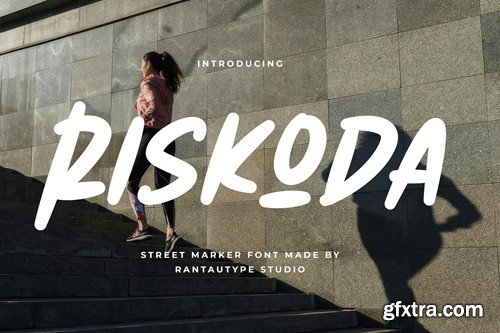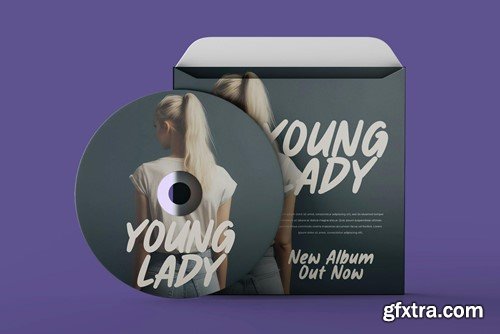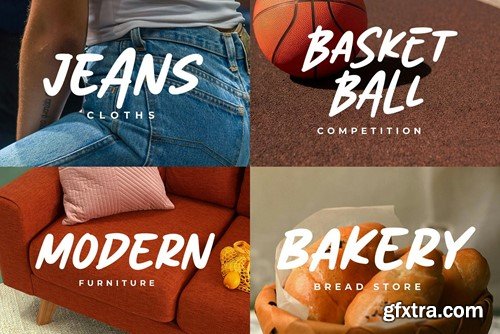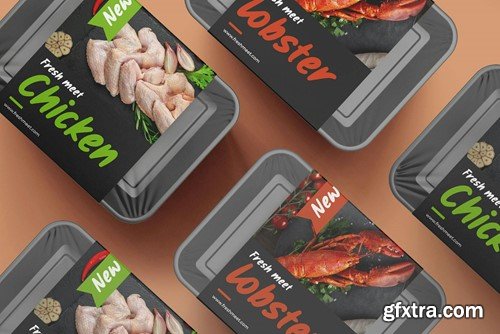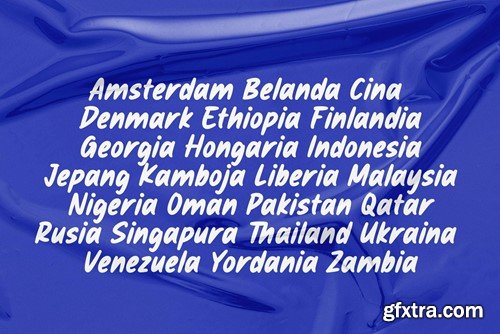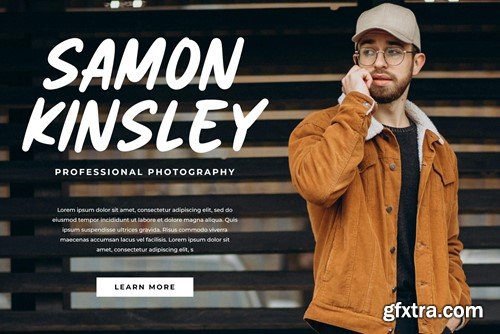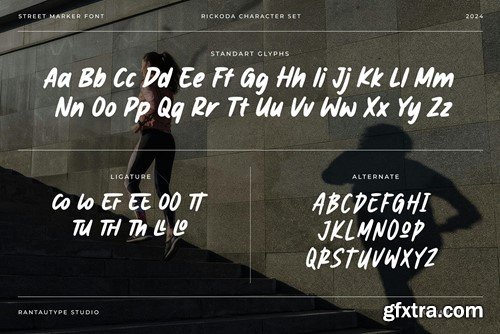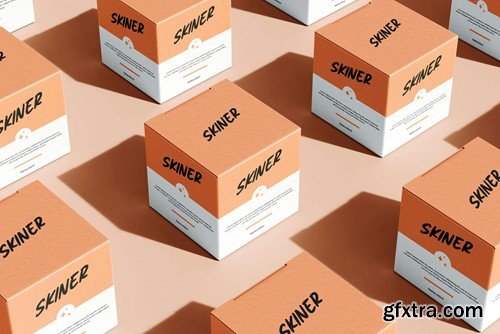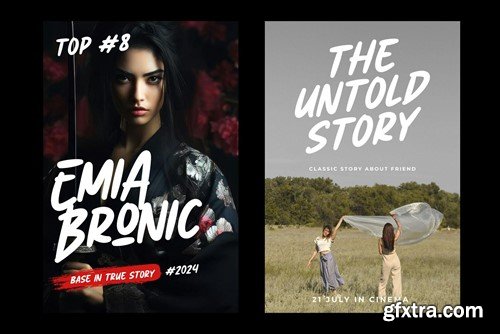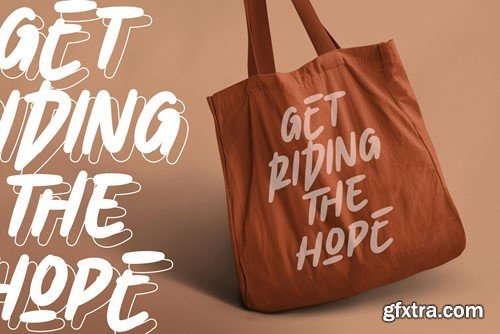
Riskoda is street marker font with youthfulness and vitality look. Riskoda bring spirit of visual dengan with single marker stroke make it more attention in your design project. Riskoda is a perfectly choice for any creative endeavor, lifestyle design such as logotype, advertisements, watermark on photography, branding project, display and magazine, invitation, corporate brand, product design, label, business project and other project with street taste. What you have: Fonts include Multilingual Character for: Afrikaans, Albanian, Asu, Basque, Bemba, Bena, Breton, Chiga, Cornish, Dutch, English, Estonian, Filipino, Finnish, Friulian, Galician, Gusii, Indonesian, Irish, Italian, Kabuverdianu, Kalenjin, Kinyarwanda, Luo, Luxembourgish, Luyia, Machame, Makhuwa-Meetto, Makonde, Malagasy, Manx, Morisyen, North, Ndebele, Nyankole, Oromo, Portuguese, Quechua, Romansh, Rombo, Rundi, Rwa, Samburu, Sango, Sangu, Scottish, Gaelic, Sena, Shambala, Shona, Soga, Somali, Spanish, Swahili, Swedish, Swiss, German. Thank you for your purchase! Hope you enjoy with our font!